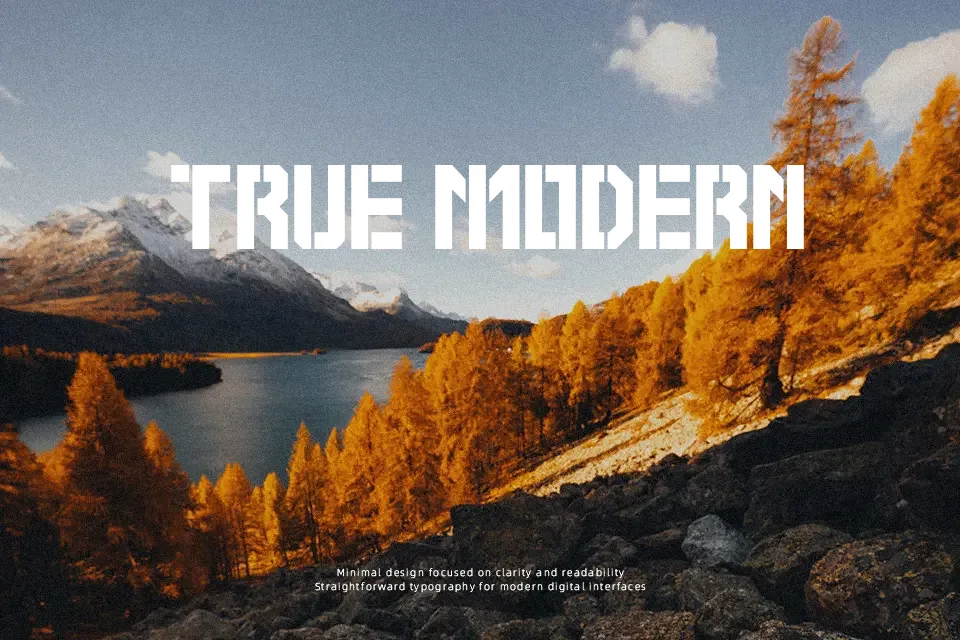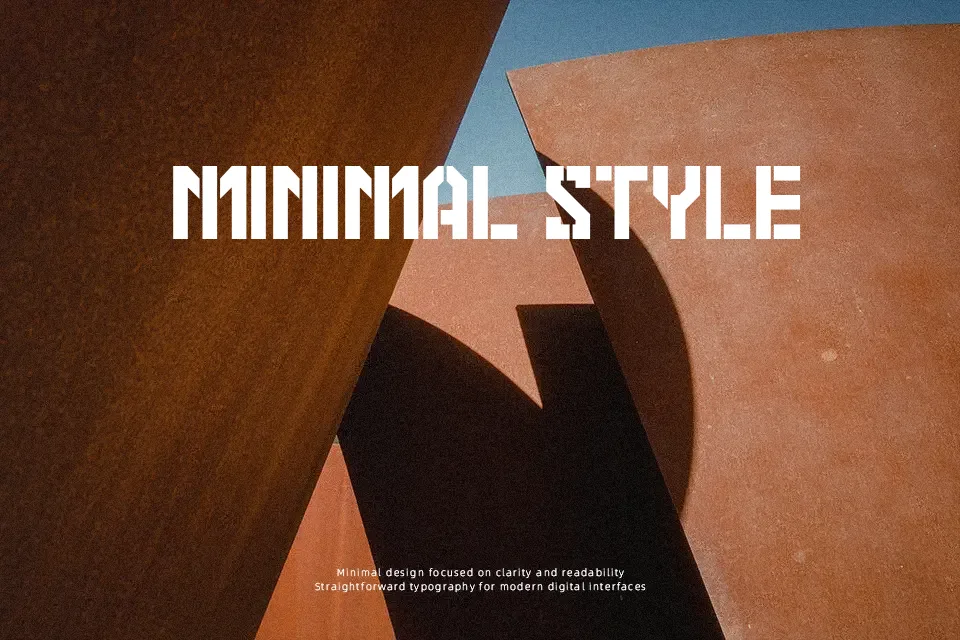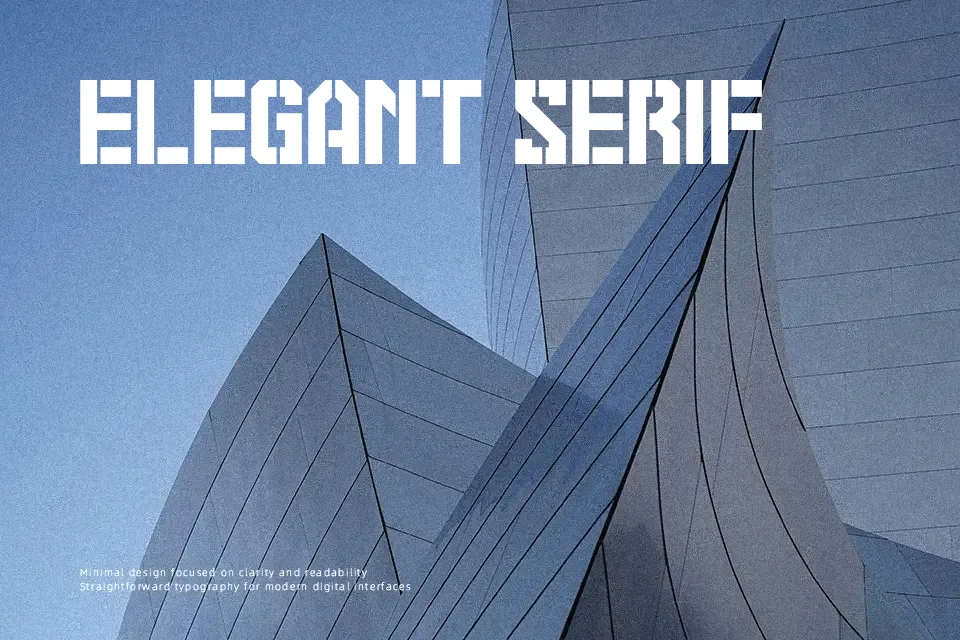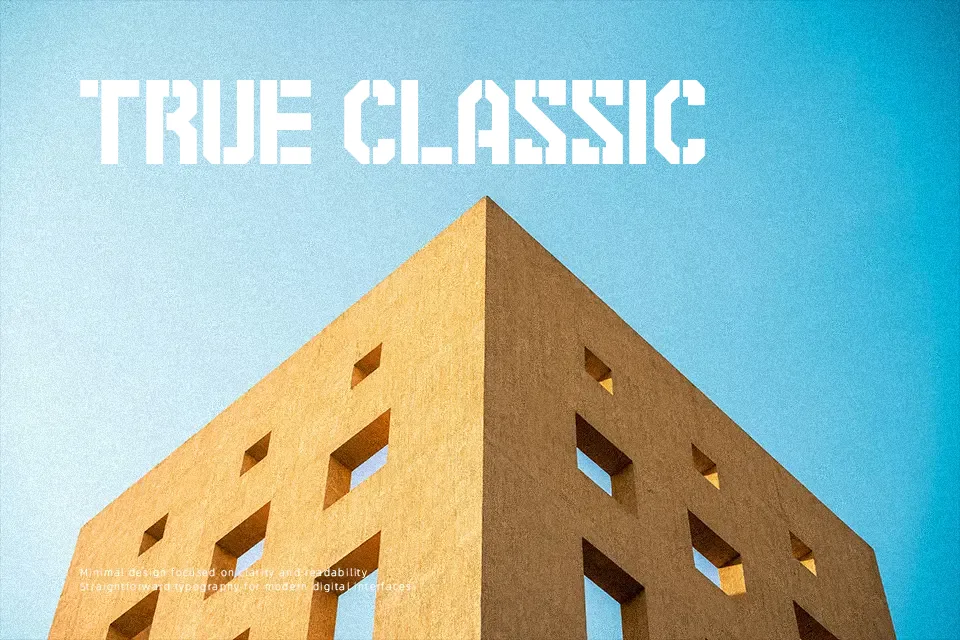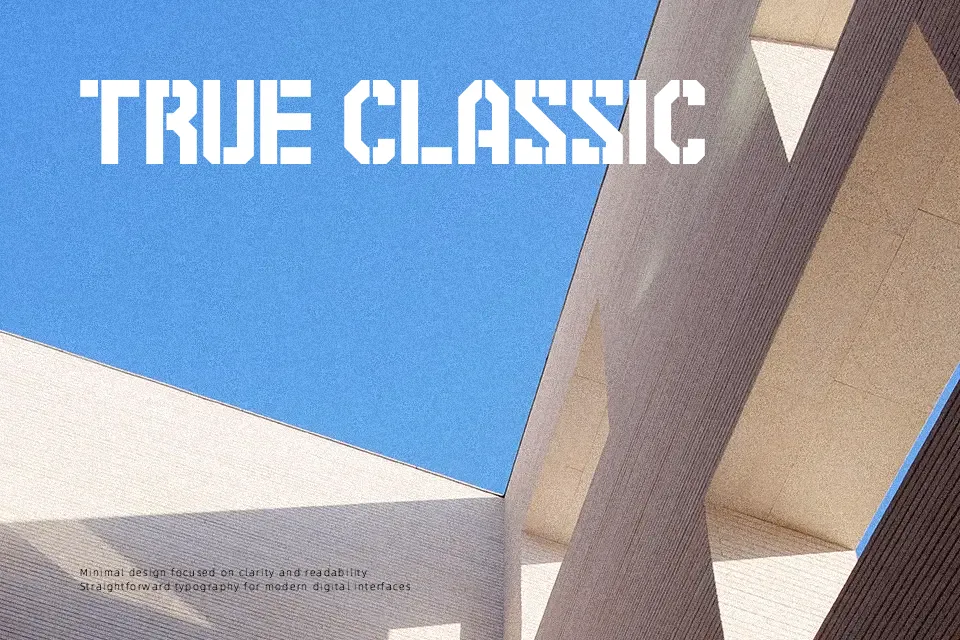
Komandan Font
Designed by Afiq Anggriawan
Sharp edges, thick strokes, and tight spacing give Komandan Font a commanding presence that immediately feels structured and assertive. The letterforms lean toward a stencil-like, militaristic style, creating a disciplined and slightly aggressive tone. It performs best in titles such as esports banners, action game covers, or bold promotional posters where visibility matters more than readability. However, the dense construction and limited spacing make it uncomfortable for long paragraphs or small sizes. In practice, it works when you need impact fast—but becomes tiring when overused or applied to detailed content.
gaming title graphics
poster headlines
sports team branding
action-themed social media banners
small UI text
editorial layouts
Perfect for branding, gaming, and headline, with a bold and display style.